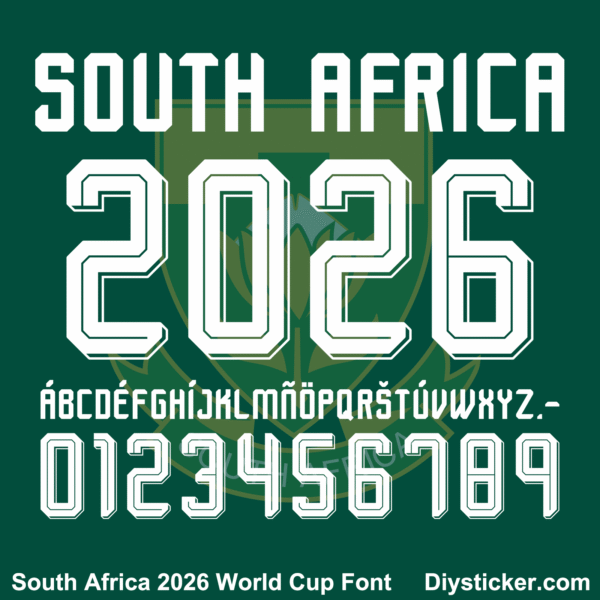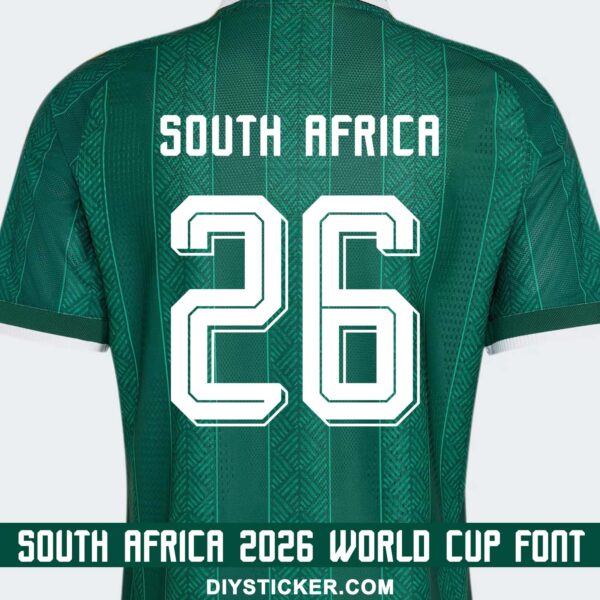
South Africa 2026 World Cup Away Font Download
Bring the sharp, culturally inspired typography of Bafana Bafana to your production line with this premium sports lettering asset. This package delivers the official-style South Africa 2026 World Cup away font and custom inline numeric vector layout, fully optimized for the global 2026 international tournament cycle. Engineered specifically for independent apparel brands, custom garment printers, and professional vinyl cutting shops, this product features an automated instant digital download link immediately following secure checkout.
South Africa 2026 World Cup Away Font & Numbers Vector Kit: Premium Football Typography Customization
Upgrade your custom print production with the high-performance South Africa 2026 World Cup away font and complete numbers set. Designed to perfectly replicate the distinctive national team look worn during international qualifiers and world championship stages, this digital toolkit offers unrivaled geometric precision. Whether you are creating an authentic custom name-set for a passionate fan or compiling bold promotional sports signage, our vector files ensure factory-fresh alignment. Discover more iconic international tournament designs by exploring our curated World Cup 2026 Fonts repository.
Aesthetic Design Breakdown & Typography Engineering
The South Africa 2026 World Cup away font showcases a highly sophisticated, inline geometric layout that beautifully balances traditional African heritage cuts with modern, high-impact athletic styling:
Crisp Layered Inline Stripes: The core feature of the numeric set is a clean, dual-line internal inline stripe running precisely parallel to the outer edges of the numbers. This negative space detail injects an aerodynamic, premium dimensionality into the jersey digits.
Chiseled Internal Accents & Organic Cuts: The letters and numbers feature distinct, clean structural notches along the inside paths, providing a powerful tribal-inspired geometric aesthetic while maintaining crisp legibility from a distance across the pitch.
Balanced Tall, Condensed Profile: Built with slightly chamfered corners and elongated vertical baselines, the alphabet ensures a tight, professional architecture across the jersey shoulders that accommodates long player names easily.
High-Contrast Deep Green & White Palette: Engineered specifically to pop with maximum visual impact when rendered in brilliant solid white against the team’s dark green textured away kit, creating a striking contrast for premium print replicas.